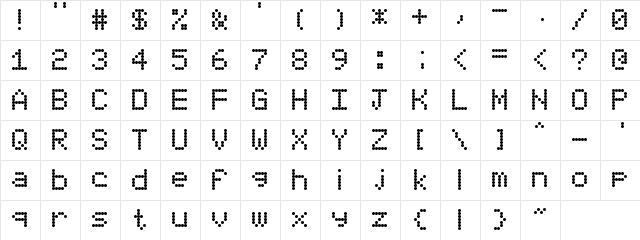
FlynnTerm Regular
| Designer | Scott Lawrence |
Design Context for FlynnTerm Typeface
FlynnTerm is a composed and adaptable typeface that performs quietly and consistently across a wide range of design contexts.